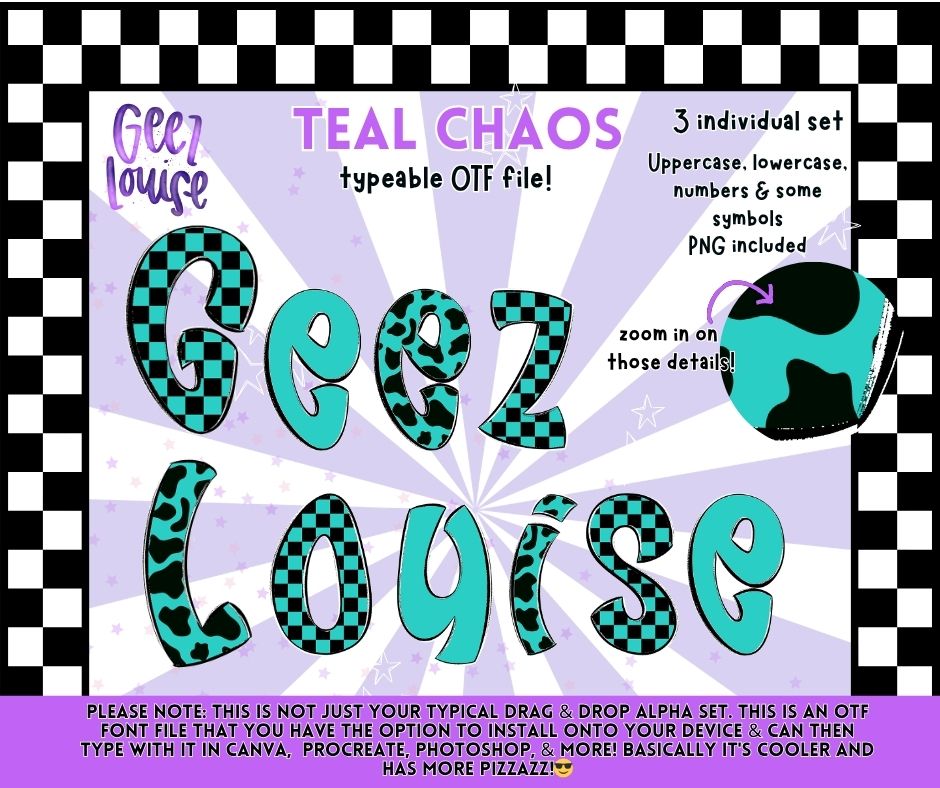
Teal Chaos OTF Font | Funky Checker & Cow Print Alpha | Typeable Font + PNG Set | Commercial Use
Not your basic alpha… this one came to stir things up 💅✨
Teal Chaos is a bold, funky typeable OTF font packed with checkerboard and cow print vibes that bring instant attitude to your designs. This isn’t just drag-and-drop… you can actually install it and type with it 👀
Basically… it’s louder, cooler, and has way more personality than your average alpha set 🔥